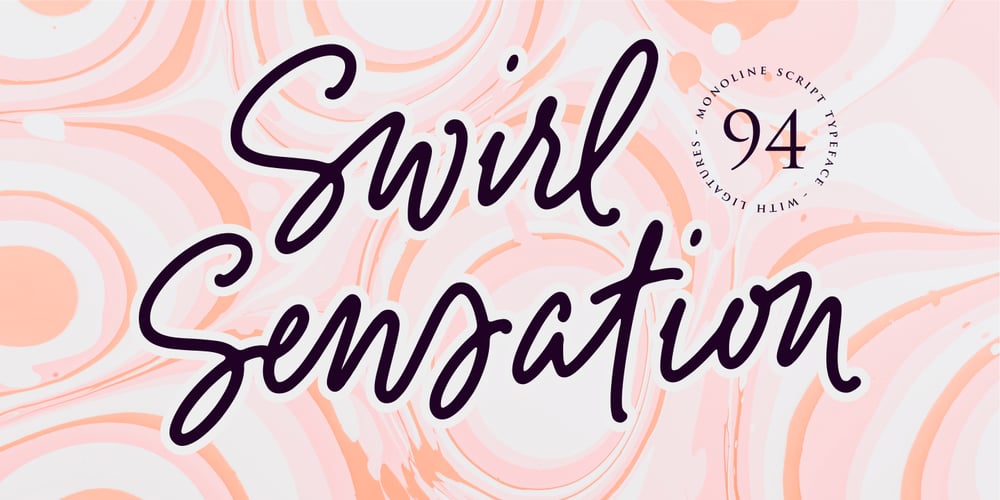
Swirl Sensations
Swirl Sensations font
Swirl Sensations Font Family was designed by Nurul Fajri Redy and published by Redy Studio. Swirl Sensations contains 1 styles and family package options. From Lovely Label comes Swirl Sensations inspired by the feeling of the pen stroke. Swirl Sensations fonts will be a treat for your eyes. Combined with the natural flow of handwritten typefaces, this series is a lot of fun and can help bring your design to life. This font is perfect for creating stunning designs in various styles, including vintage, cute, colorful, hand-made, or customized logos. Made manually by the author and it is the best match to put your texts perfectly on the design. In addition, this font is great for numerous types of projects: logos, branding projects, t-shirts, advertising, labels, and other items. Also ideal for invitations for its unique style of writing.Feel free to give me a message if you have a problem or question. Thank you so much for taking the time to look at one of our products.